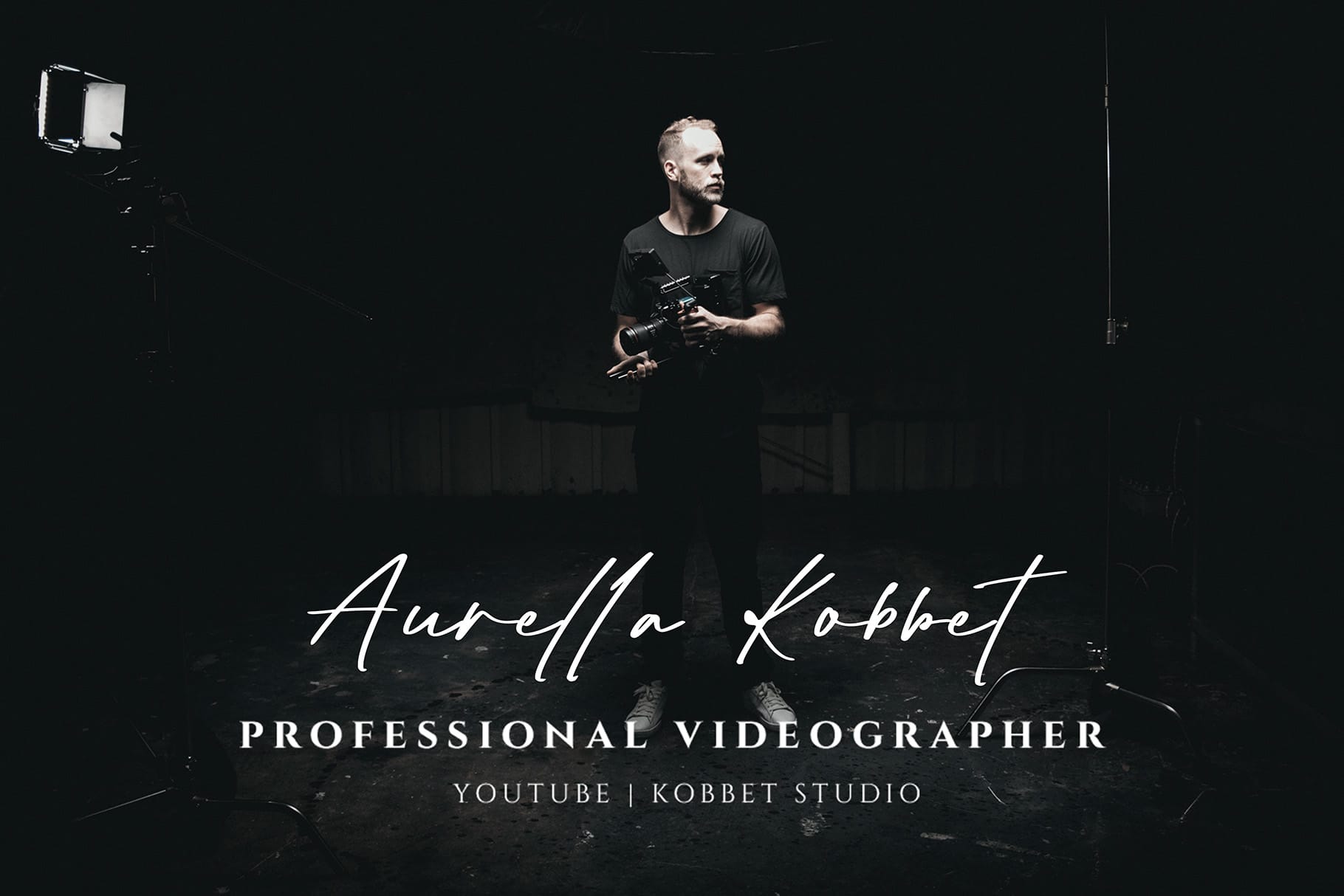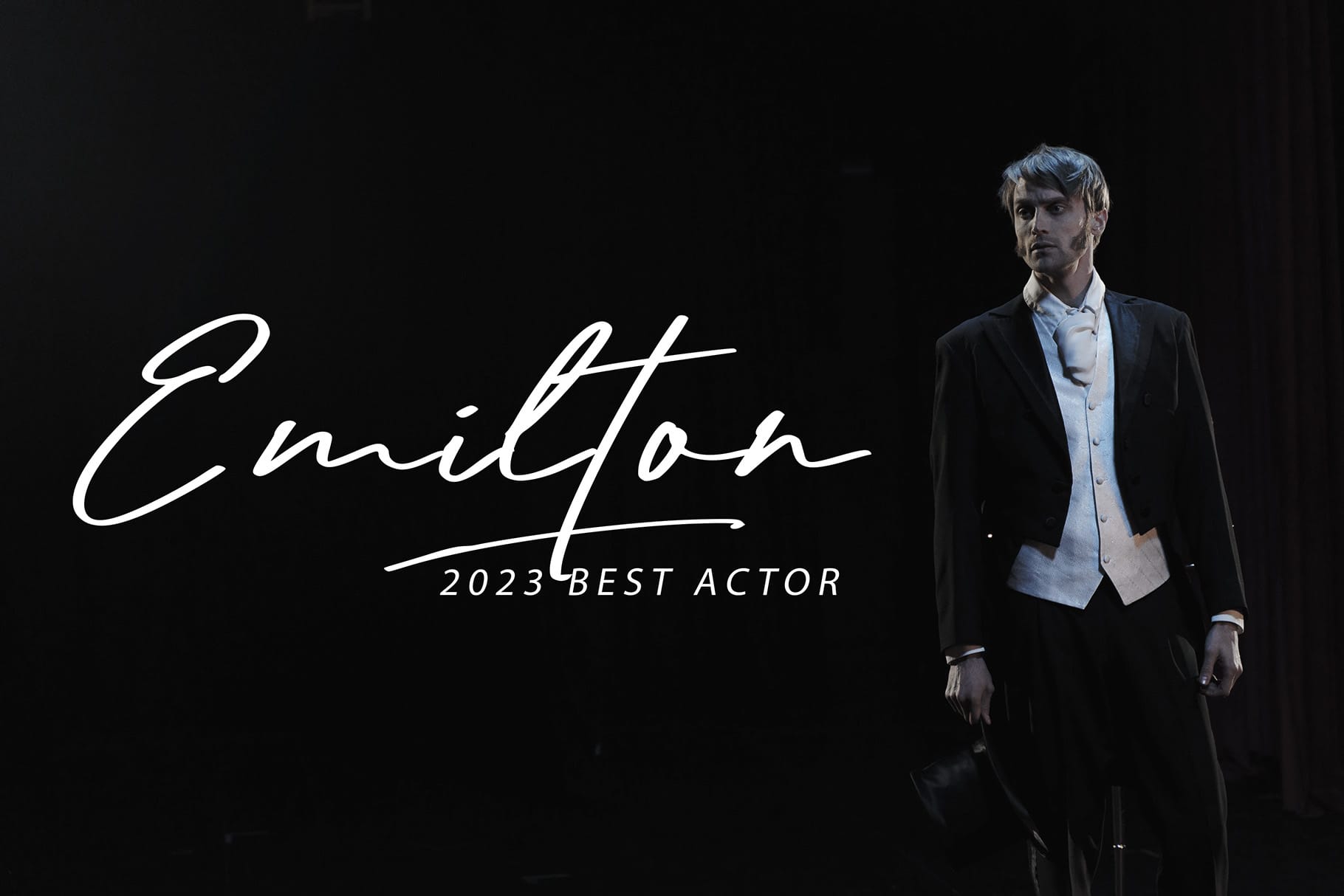
Radditya – Elegant Signature Font for Timeless Branding
In the world of design, elegance is timeless. That’s why Radditya – Elegant Signature Font was created to capture the sophistication of handwritten calligraphy while giving designers modern flexibility. This elegant signature font is crafted for branding, personal logos, wedding invitations, and editorial projects where beauty and personality must shine through.
With uppercase, lowercase, numbers, punctuations, and unique ligatures, Radditya offers everything a designer needs to bring projects to life. Its balance of smooth curves and refined strokes makes this font stand out among other signature fonts.
Elegant Signature Font with Natural Flow
Radditya isn’t just a typeface—it’s handwriting transformed into art. Every glyph of this elegant signature font is designed to look natural, flowing, and personal. Unlike generic scripts, Radditya captures the authenticity of a true handwritten signature.
From boutique brands to luxury product packaging, it communicates sophistication and professionalism. If you want your design to feel intimate yet premium, this elegant signature font delivers.
Key Features of Radditya – Elegant Signature Font
Designers appreciate fonts that combine both beauty and practicality. Here are the key features included in Radditya – Elegant Signature Font:
- Character Coverage: Uppercase, Lowercase, Numbers, and Punctuations
- Unique Ligatures: Adds authentic handwritten feel and creative variation
- Multilingual Support: Extended Latin coverage for global use
- Elegant Style: Perfect for logos, branding, and luxury invitations
- Professional Quality: Smooth strokes crafted for readability and design impact
Why Designers Love Radditya
Creative professionals choose Radditya because it combines elegance with versatility. As an elegant signature font, it helps them create designs that are both personal and premium.
Designers love Radditya for several reasons:
- Authenticity: Unique ligatures make every project look more like true handwriting
- Versatility: Works across weddings, branding, packaging, and digital media
- Pairing Potential: Matches beautifully with bold or serif fonts for balanced compositions
- Trusted Quality: Built with clean vectors for smooth scaling in print and digital
Elegant Signature Font for Logos and Branding
Logos are often the first touchpoint of a brand, and Radditya makes them unforgettable. This elegant signature font is perfect for personal branding, boutique businesses, fashion-related products, or creative agencies that want to stand out with a human yet luxurious style.
A logo written in Radditya instantly feels intimate, professional, and premium—exactly the impression most modern brands want to convey.
Radditya for Invitations and Stationery
Weddings, anniversaries, and special events demand typography that feels emotional. Radditya’s elegant signature font style is perfect for invitations, save-the-date cards, and personalized stationery. Its smooth ligatures create a warm atmosphere, while its graceful strokes give every design a touch of luxury.
When combined with decorative graphics or serif companions, it transforms ordinary stationery into keepsakes.
Elegant Signature Font in Editorial and Digital Media
Editorial layouts and social media posts thrive on fonts that combine style and readability. Radditya does both. As an elegant signature font, it works seamlessly for magazine spreads, Instagram posts, Pinterest graphics, and personal websites.
Its modern calligraphy style makes it perfect for digital storytelling, creating an intimate feel between brand and audience.
Why Radditya is the Elegant Signature Font You Need
Typography trends today are about authenticity, storytelling, and emotional impact. Radditya embodies all three. As an elegant font, it brings handwritten warmth to branding, makes logos more memorable, and turns invitations into heirlooms.
Radditya is ready to be the elegant signature font that defines your next unforgettable project.